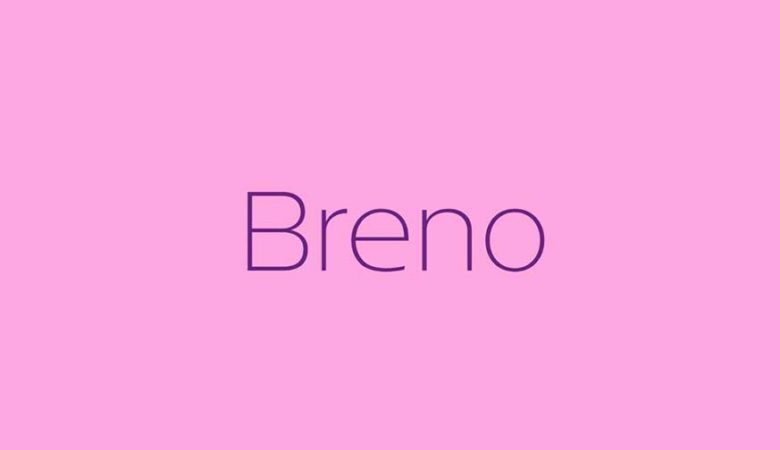
Breno Font
Breno is a sophisticated take on the modern and geometric typefaces. Intended to be a typeface that would resiste time, Breno is a practical choice for any kind of type setting, both in large and small sizes. It’s companion, the space efficient Breno Narrow, was specifically conceived for very dense environments, when plenty of information is necessary. Both Breno and Breno Narrow are available with seven weights in the standard OpenType version, all with matching italics.